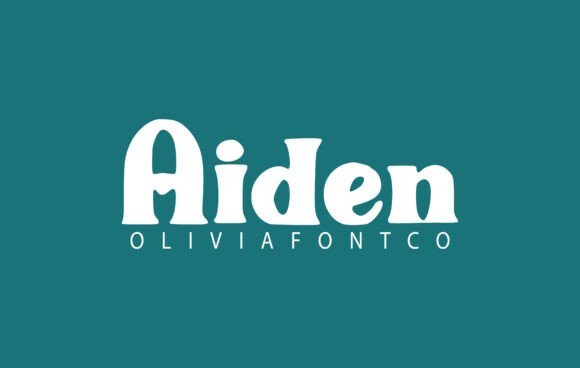
Discover the Joy of Aiden Font: Elevate Your Designs with Whimsy You know that moment when you’re staring at a blank canvas, and a spark of creativity strikes? The world seems full of possibilities, and you can’t wait to bring your ideas to life. That’s exactly what Aiden Font is designed to capture – the…